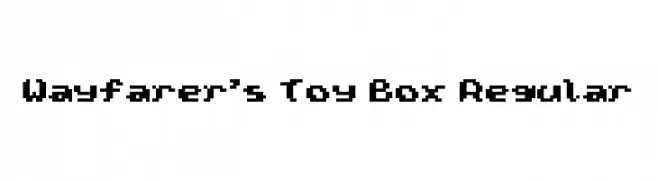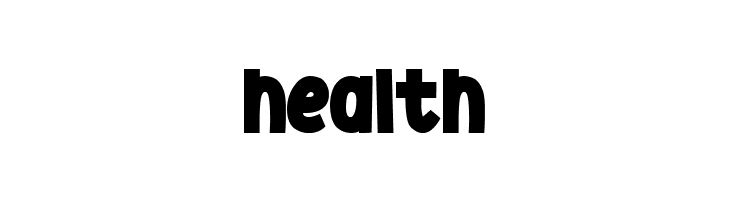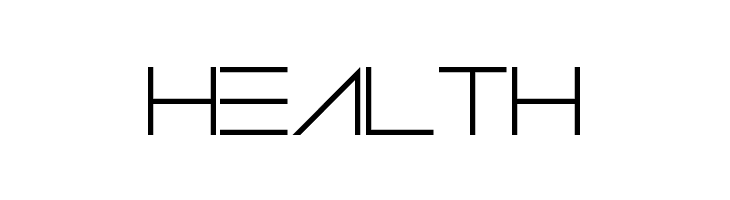
A futuristic, geometric font with clean lines and angular shapes.
A playful, pixelated font with a retro video game aesthetic.
A bold, playful font with rounded, whimsical characters.
A bold, geometric font with rounded edges and minimal contrast.